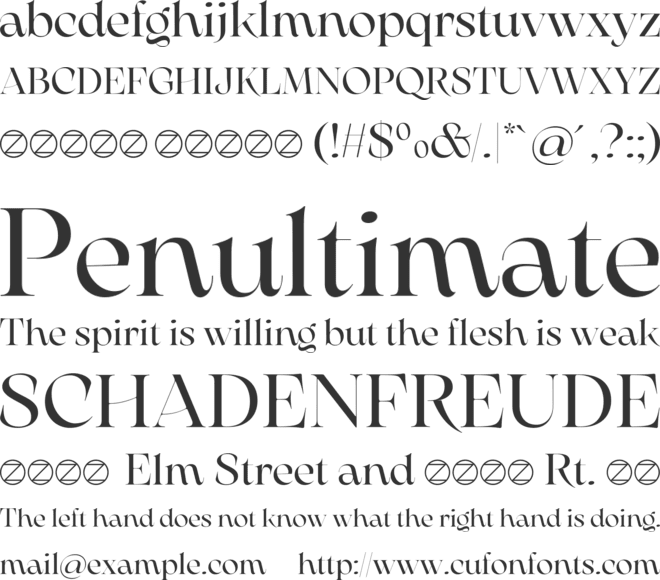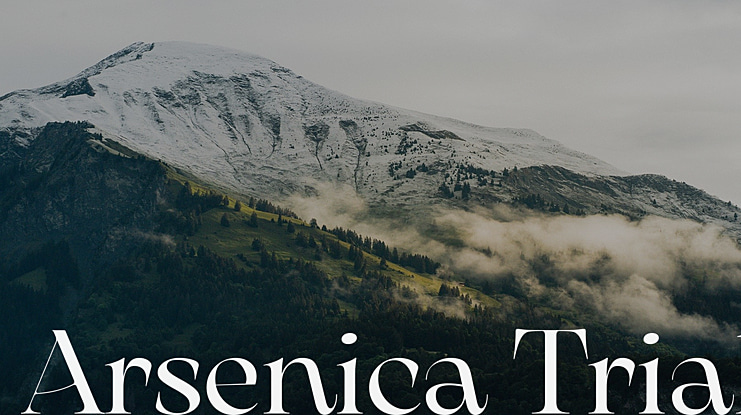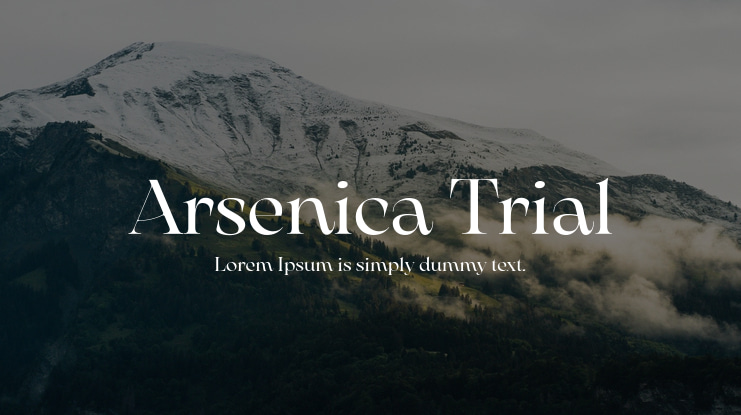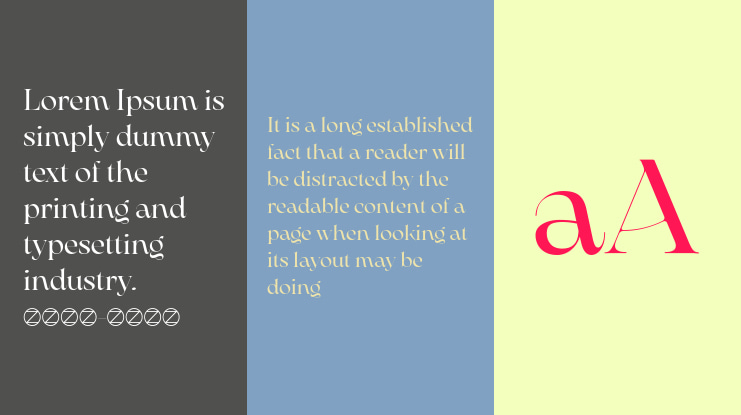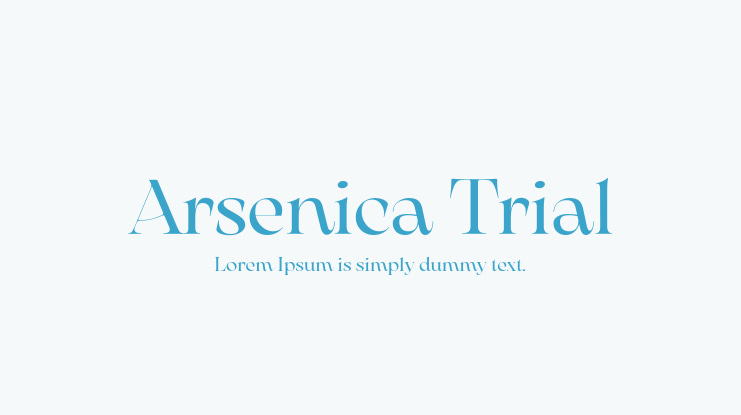
Arsenica Trial Font Family
Francesco Canovaro
--- Arsenica is a serif typeface designed by Francesco Canovaro for Zetafonts, and developed by a design team including Mario De Libero, Andrea Tartarelli and Cosimo Lorenzo Pancini.
The design of Arsenica takes its inspiration from italian poster design at the beginning of the century, a time where typography, lettering and illustration where closely interwoven. Dawning nationalist movements, rather than using the modernist language, pushed on traditional Old Style letterforms often imbued with Art Nouveau and Deco sensibility. Artists like Giorgio Muggiani not only illustrated posters for Cinzano, Pirelli and Rinascente, but also provided logo design for newspapers, like "Il Popolo d'Italia".
Starting from this mix of eclectic influences, Canovaro first developed the Arsenica Antiqua family, designed as display typeface that keeps the original Old Style low-contrast, wide proportions and quirky stylistic inventions. These where then distilled in a high contrast, Arsenica Display family, expanding the weight range to include both poster, ultrabold weights and lighter weights that give the design a distinct calligraphic flavour. Bringing the letterforms into contemporary taste meant also developing alternate letterforms that were included in the Arsenica Alternate family, that drops the art nouveau details in favour of a more controlled modern serif aesthetic. Finally, Arsenica Text was developed by expanding the design space in the optical size axis, creating a low contrast, strongly readable old style typeface family, with a reduced weight set, oriented for long body copy typesetting.Β Β Β More...
The final result is a superfamily of 41 weights, covering the design space with an expanded charset of over nine hundred glyphs, with full coverage of over two hundred languages using latin and cyrillic alphabets. All the weights of Arsenica come with a full set of open type features allowing to explore its vintage-inspired visual inventions thanks to stylistic sets, discretionary ligatures, contextual alternates and positional numbers. Two variable typefaces are included in the full family, allowing you to explore the design space and precisely control not only the weight but also the optical size design variations.